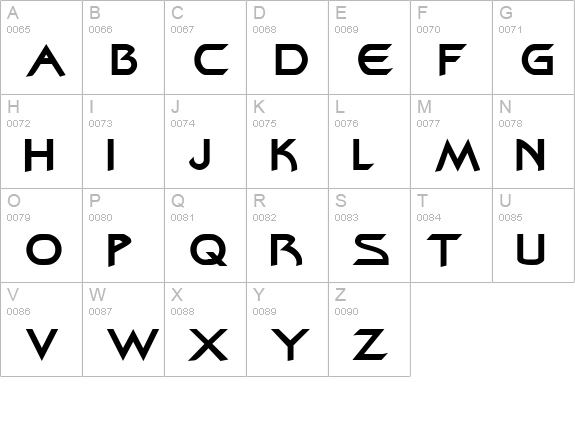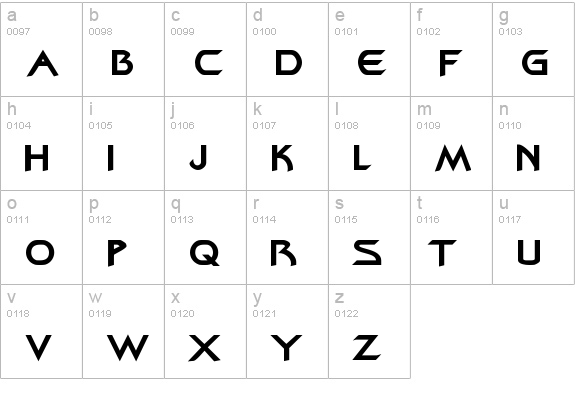
Zenon Bold is a strong, high-contrast variant in the Zenon typeface family \xE2\x80\x94 well suited to headlines, attention-grabbing titles, and strong calls-to-action.
Zenon Bold font is a modern and stylish typeface that exudes confidence and sophistication. With its clean lines and bold presence, Zenon Bold is perfect for making a statement in headlines, titles, and branding materials. The font strikes the perfect balance between modernity and timelessness, making it versatile for a wide range of design projects. Best of all, Zenon Bold is available for free download at FontsMarket.com. This means you can easily access this high-quality font to elevate your designs without any cost. Whether you're a professional graphic designer or a hobbyist looking to enhance your projects, Zenon Bold is a must-have addition to your font collection. Download it now and start creating impactful designs with ease.